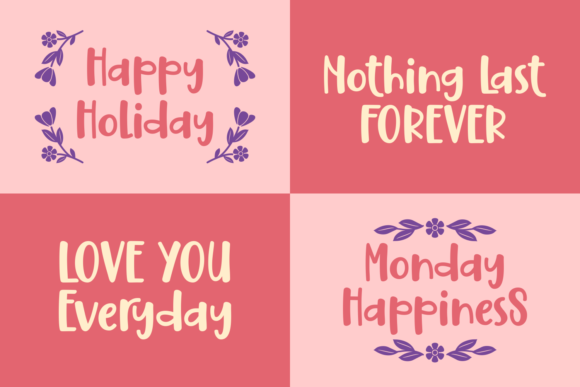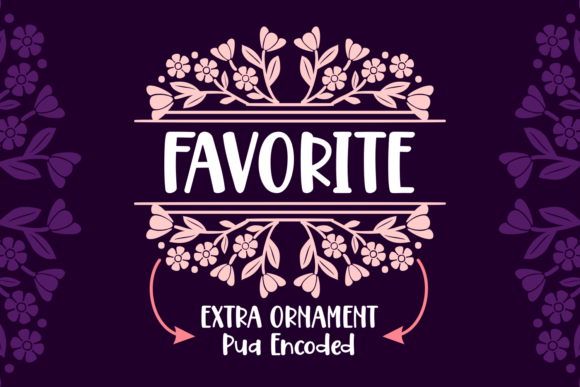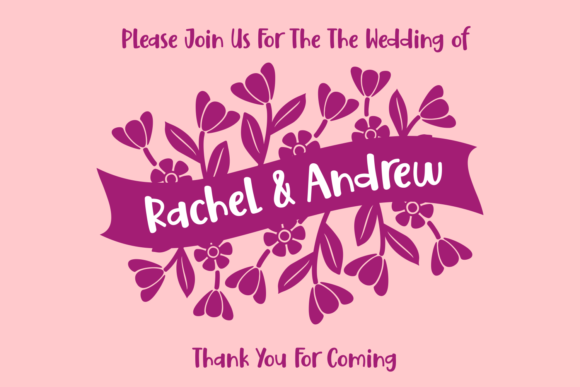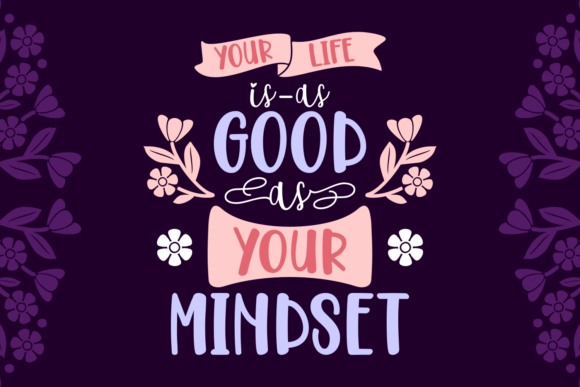
Unlocking the Power of Kindness Magic Font
Have you ever sat at your desk, staring at a blank page, and suddenly a burst of creativity hits you? You envision a beautiful design, full of color and life, and you can’t wait to bring it to life. For designers like you, the right font can be the key to unlocking that creative spark. That’s where the Kindness Magic Font comes in – a friendly display font that’s perfect for bringing a touch of whimsy to your designs.
Whether you’re working on a cartoon-inspired project or creating a title for a children’s book, the Kindness Magic Font is a valuable tool in your design arsenal. Its cool and friendly vibe makes it an instant favorite among designers, and its versatility means you can use it for a wide range of projects, from posters to book covers.
Kindness Magic Font Key Features
- Unique Character Set: The Kindness Magic Font features a special set of characters designed to convey warmth and compassion, including smiling faces, hearts, and other emotive symbols.
- Customization Options: Allows for customizable ligatures, swashes, and contextual alternates to enhance the font’s expressive capabilities.
Designer Review: Kindness Magic Font
Overall, I’m underwhelmed by the Kindness Magic Font. While it has some charming aspects, it falls short in several key areas. ✨ The font does have a unique, whimsical feel to it, which could be perfect for a children’s book or a social media campaign promoting positivity.
- ✨ The font’s playful, hand-drawn feel is reminiscent of traditional typography, and the subtle texture adds a touch of warmth.
- ✨ The font is highly legible, even at smaller sizes, making it suitable for body text or captions.
- ✨ The font’s color palette is customizable, allowing users to match it to their brand’s aesthetic.
However, there are some significant limitations to consider: ⚠️ The font’s flexibility is limited, making it difficult to use for more formal or professional projects.
- ⚠️ The font’s character set is limited, which may cause issues when using it for international or technical content.
- ⚠️ The font’s kerning and spacing can be inconsistent, leading to visual clutter.
Overall, I would recommend the Kindness Magic Font for casual, creative projects, but it may not be the best choice for more formal or technical work.
Kindness Magic Font: A Practical Application Guide
Tips for Getting the Most Out of Kindness Magic Font
Use Kindness Magic Font to add a touch of whimsy and personality to your designs.
Combine Kindness Magic Font with other fonts to create a unique and eye-catching design.
Use Kindness Magic Font for:
Invitations and event graphics
Social media graphics and posts
Product packaging and branding
Wedding and birthday party decorations
Pacifico is a beautiful, elegant script font perfect for creating a warm and inviting atmosphere. It is ideal for use in branding, logos, and advertising materials where a touch of sophistication is required.
Compared to Kindness Magic Font, Pacifico has a more refined and luxurious feel, making it suitable for high-end branding and design projects. However, it lacks the playful, handwritten feel of Kindness Magic Font.
Great Vibes is a modern, handwritten font that is perfect for creating a fun and energetic atmosphere. It is ideal for use in social media graphics, posters, and other marketing materials where a bold and playful feel is required.